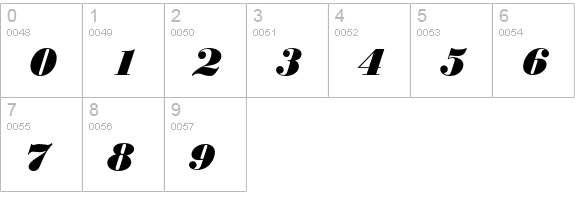
Bodoni Black Italic is a maximum-weight, dramatic, italic variant in the Bodoni typeface family \xE2\x80\x94 well suited to maximum-impact headlines, posters, and packaging.
Bodoni Black Italic font is a striking and elegant typeface that exudes sophistication and style. With its bold and slanted design, this font commands attention and makes a powerful statement in any design project. The sleek curves and sharp edges of Bodoni Black Italic create a sense of modernity and refinement, making it perfect for luxury brands, fashion magazines, and high-end products. Best of all, Bodoni Black Italic is available for free download at FontsMarket.com. This means you can easily add this professional and eye-catching font to your projects without any cost. Whether you're designing a logo, poster, or website, Bodoni Black Italic is sure to elevate your work and leave a lasting impression on your audience. Download it today and experience the beauty and versatility of this stunning font.